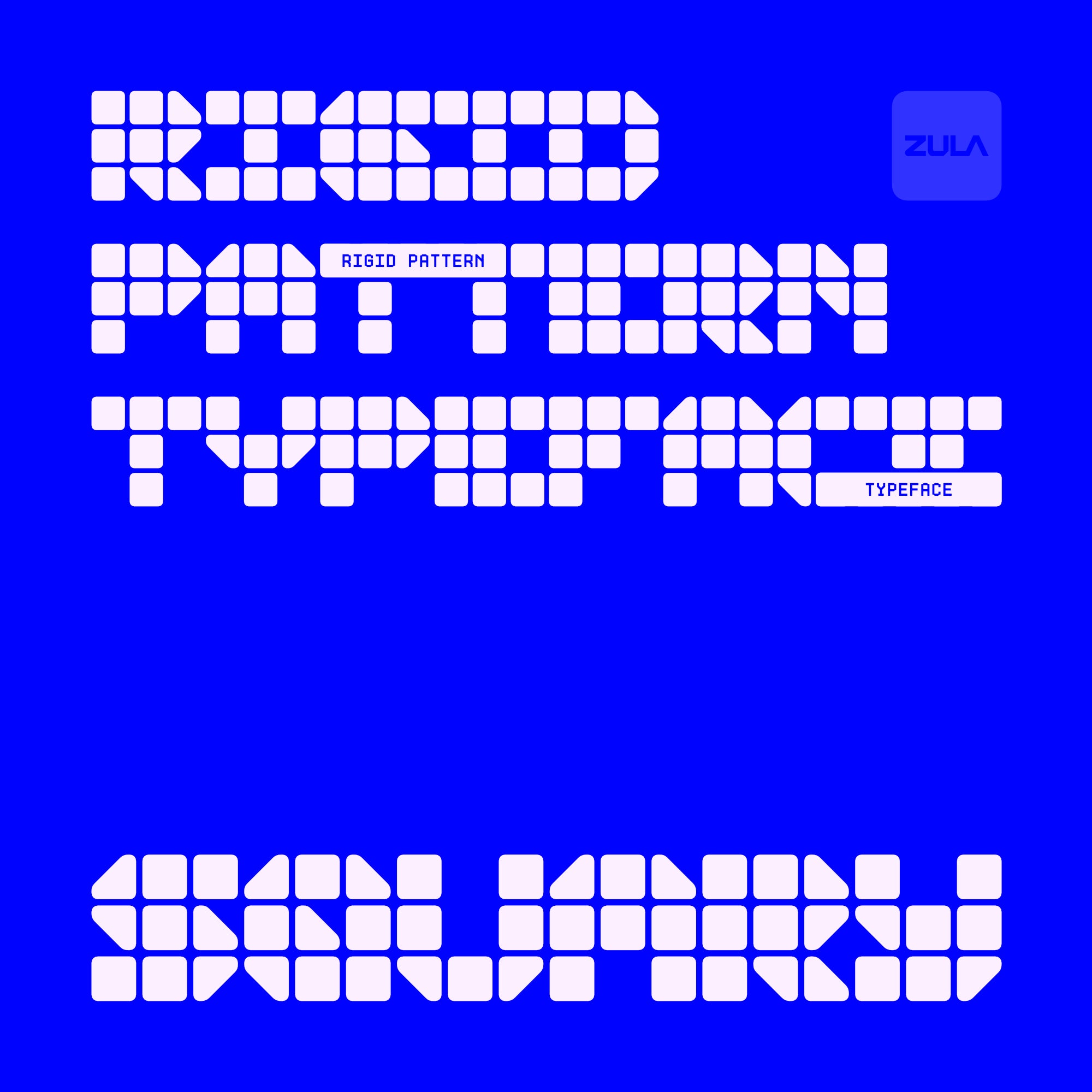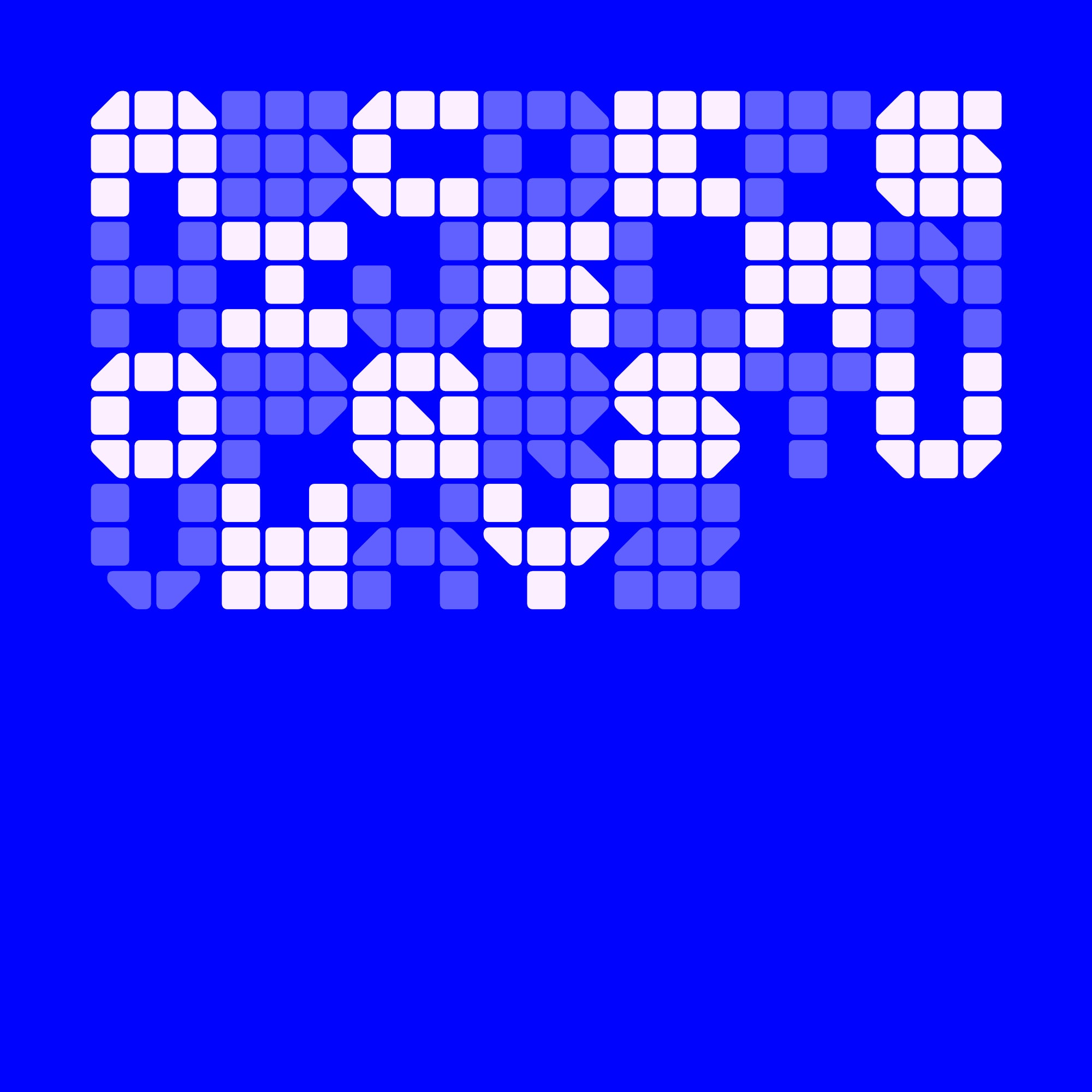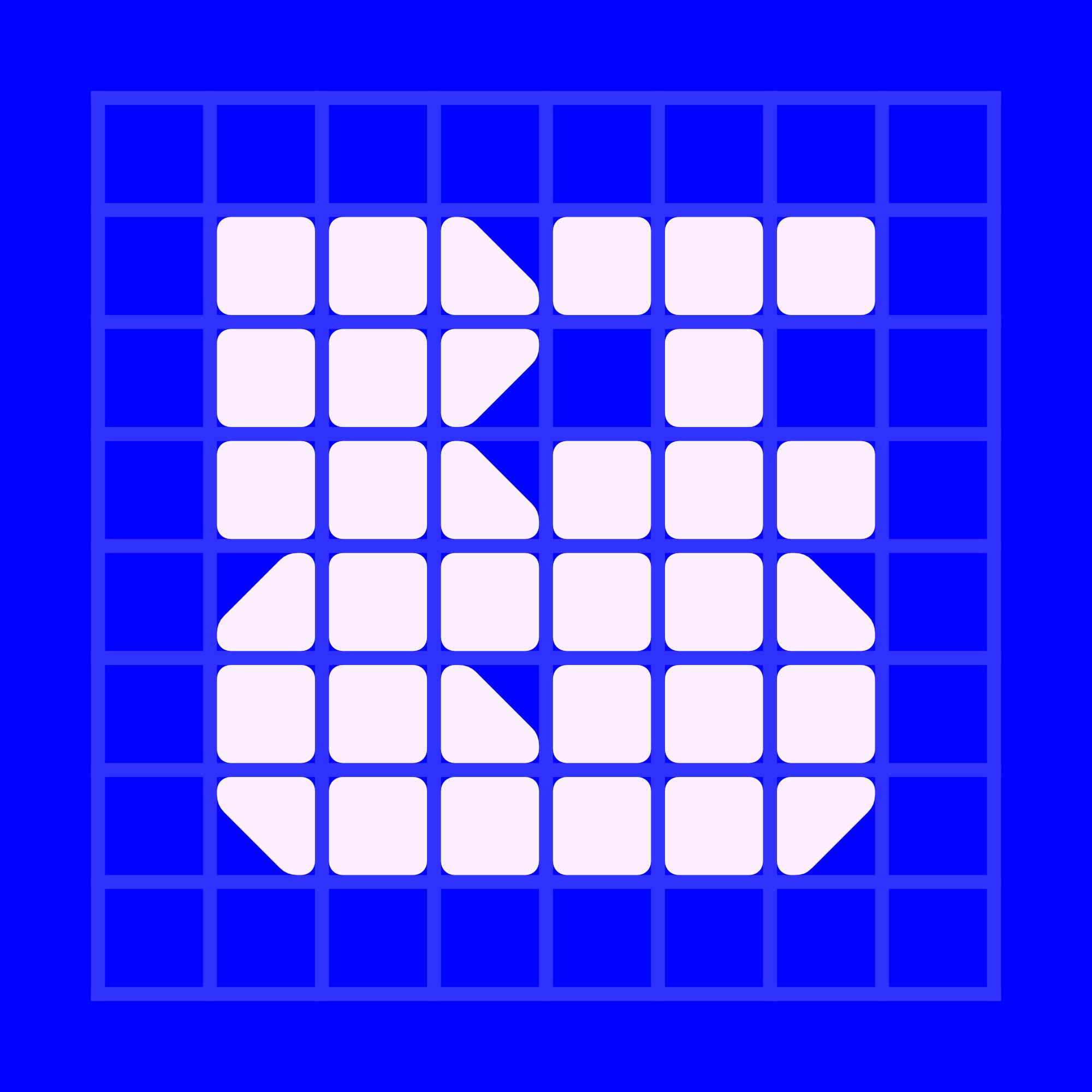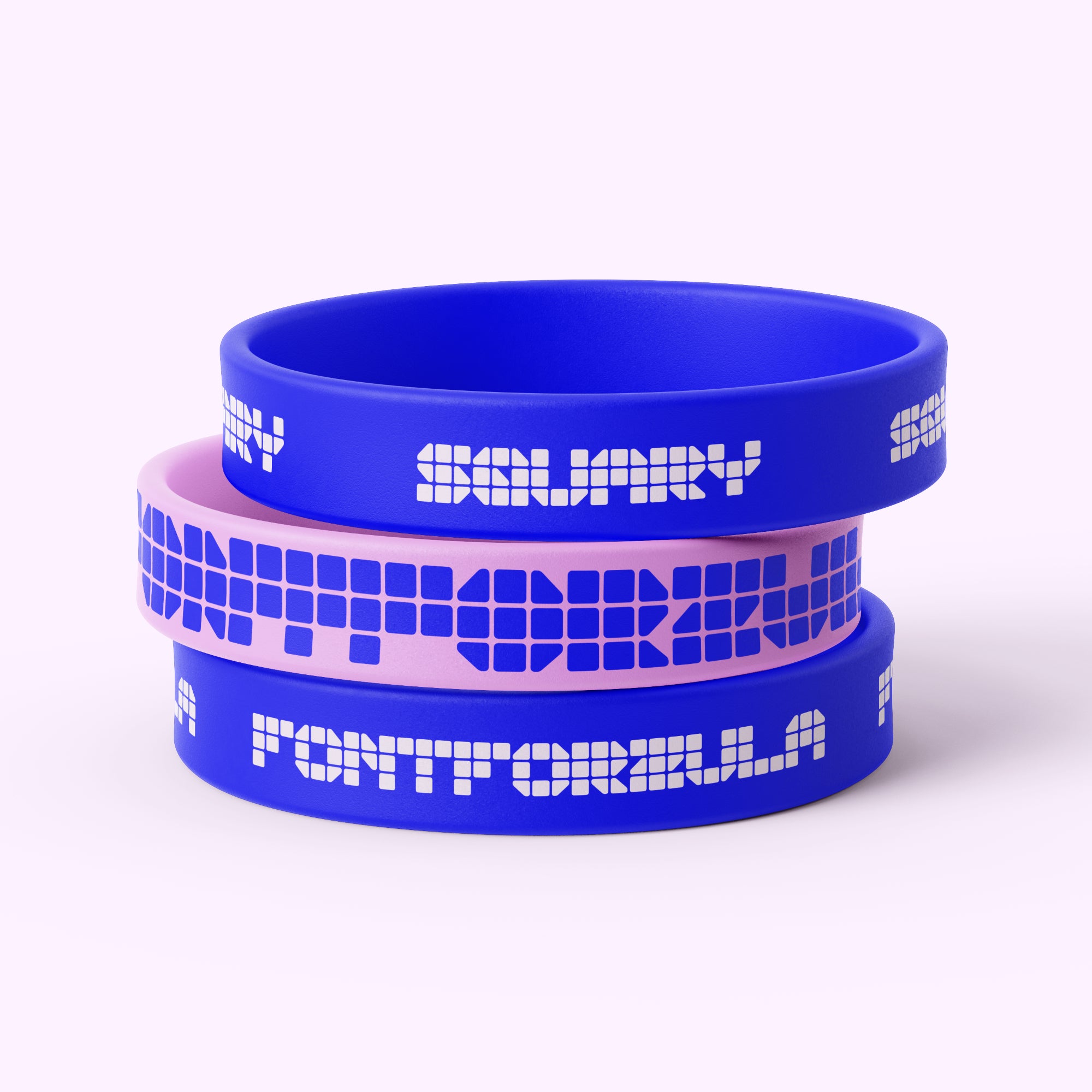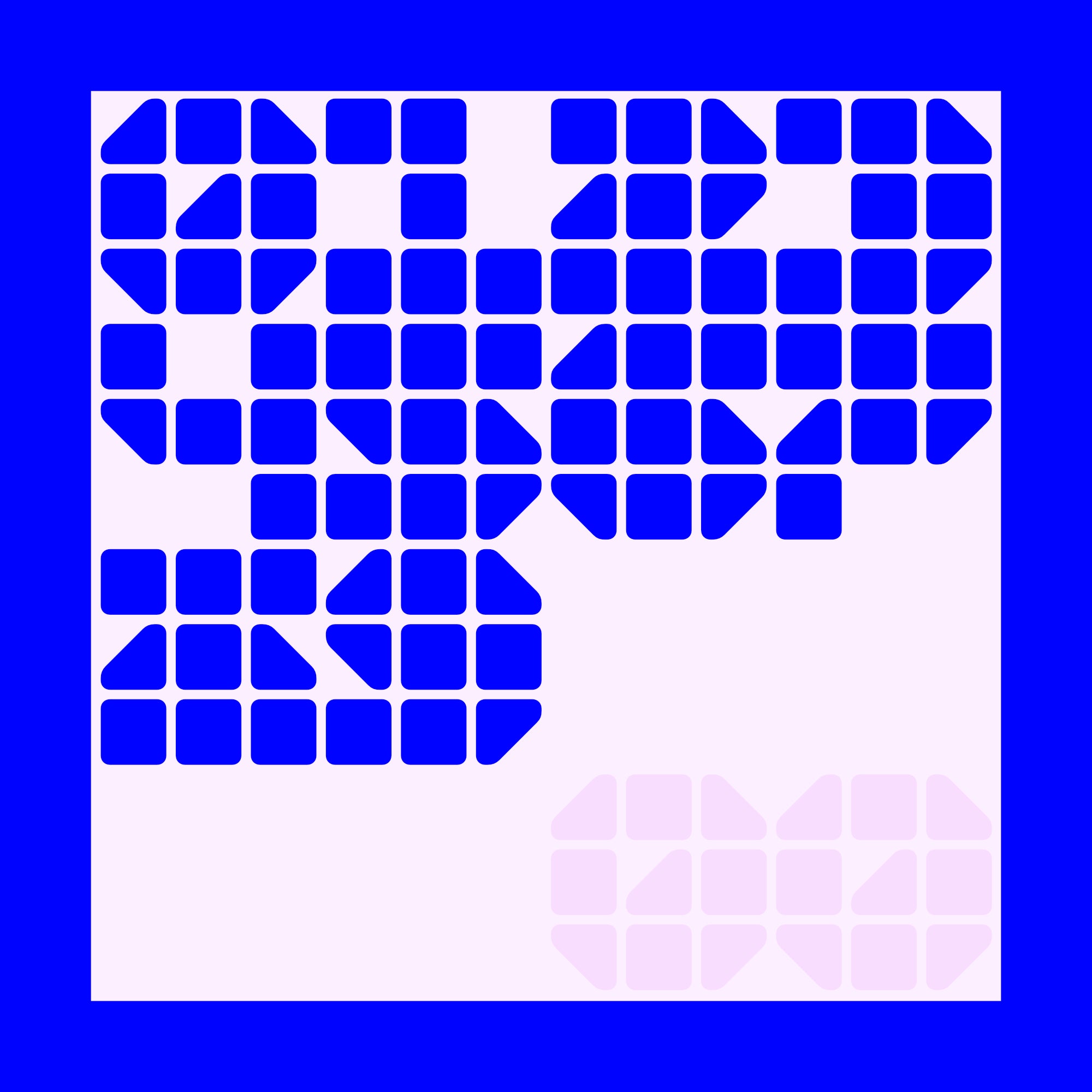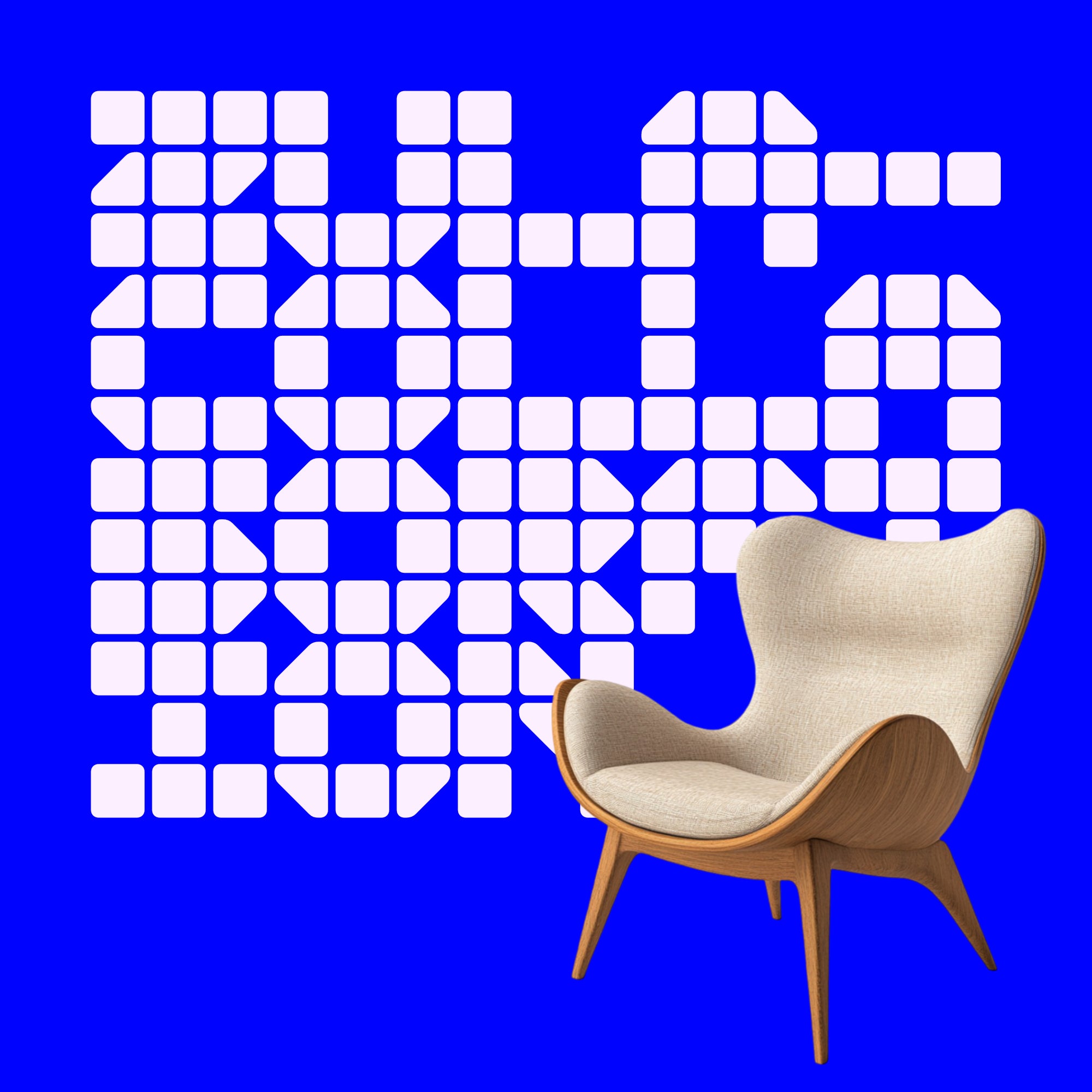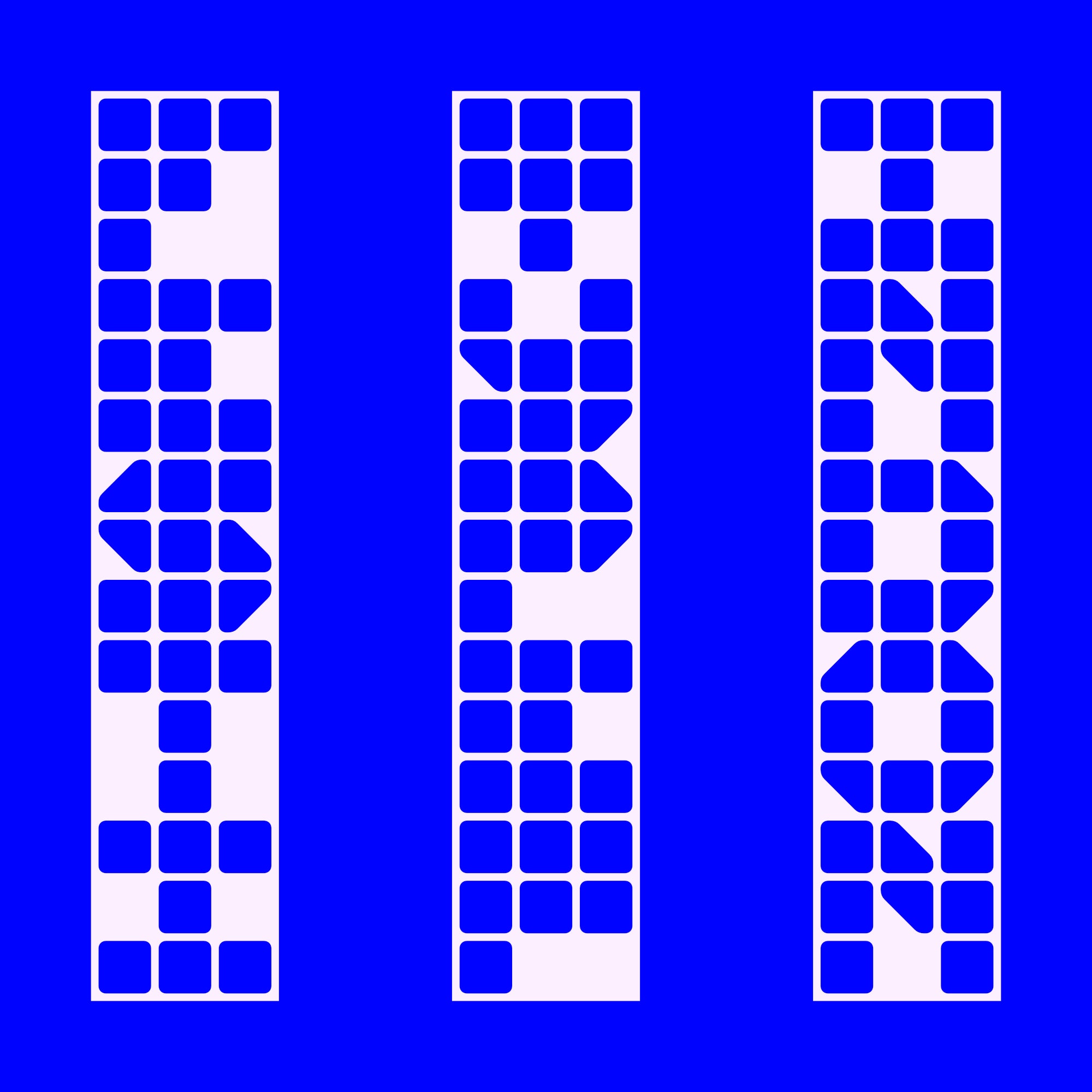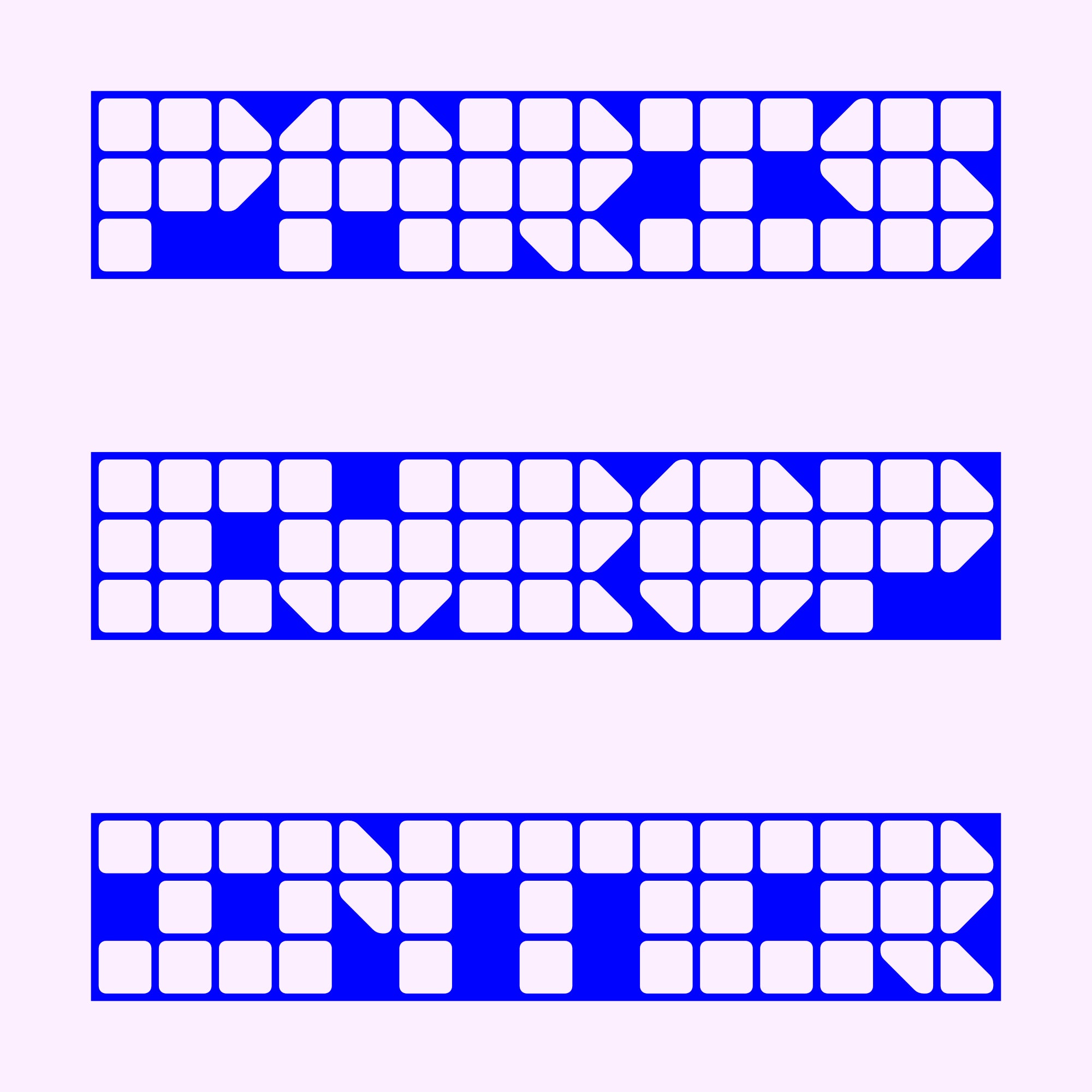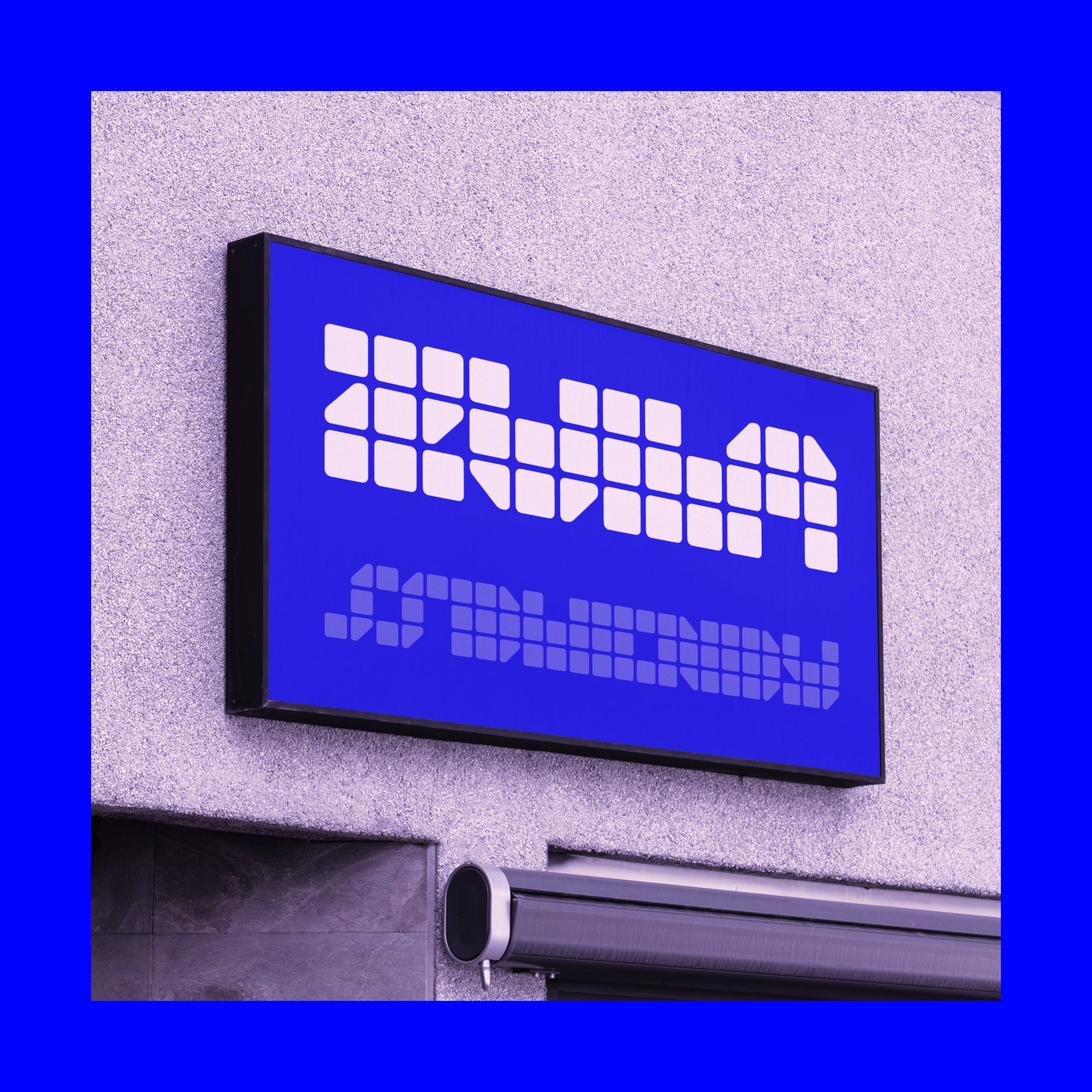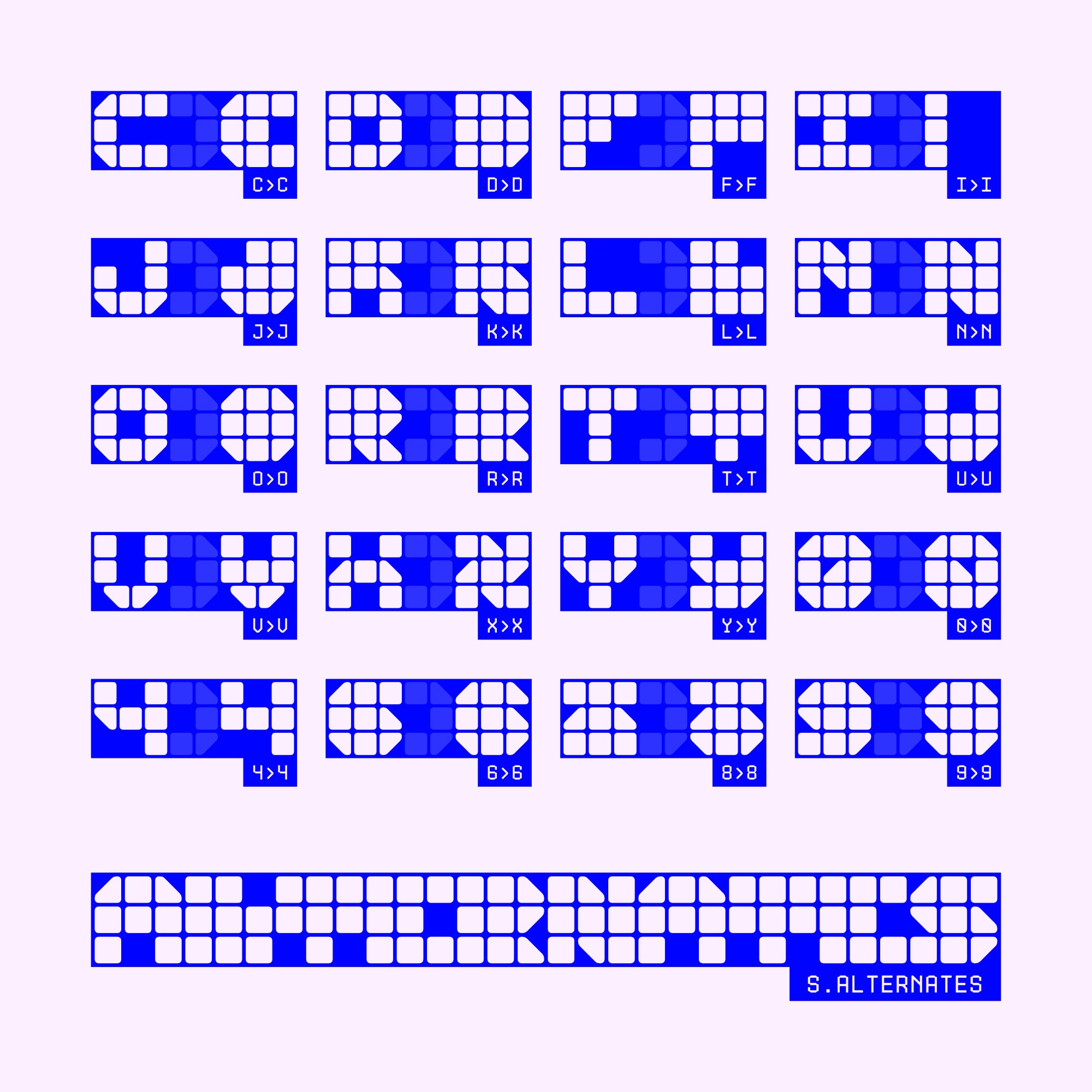
SQUARY Typeface
SQUARY Typeface is a typeface that is formed from a combination of rigid square patterns with rounded corners that are engineered into a unique and geometric shape.
SQUARY Includes :
- 26 LETTERS (ALL CAPS)
- 15 Letters Alternates
- 10 Numeral
- 5 Numeral Alternates
- Punctuation, Symbol, and Mark